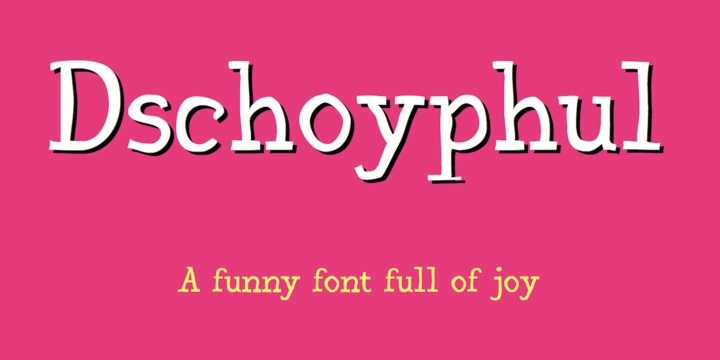
Dschoyphul Font
Dschoyphul Font is perfect for celebratory event branding, festival marketing materials, party invitation designs, cheerful greeting cards, children's entertainment venues, birthday party decorations, joyful holiday campaigns, and uplifting motivational content where happiness and positive energy are essential.
What makes Dschoyphul Font so exciting is its infectious ability to radiate pure joy and celebration through exuberant letterforms that instantly lift spirits and create smiles while maintaining excellent readability. The playful character design embodies the unbridled enthusiasm and genuine happiness that makes special occasions truly memorable.
The Dschoyphul Font family includes regular, bold, and festive variants, with decorative celebration elements and joy-inspired ornaments that provide designers with comprehensive tools for creating memorable party branding and happiness-focused design projects.
The font's bouncy character variations and cheerful details create immediate associations with laughter, celebration, and positive life experiences. Each letterform has been crafted to evoke the spontaneous happiness and infectious energy found in life's most joyful moments.
Dschoyphul Font excels in creating memorable brand experiences that spread happiness and create lasting positive impressions. The typeface's joyful personality makes it ideal for businesses and organizations dedicated to bringing joy and celebration into people's lives.
From event planning companies to children's entertainment venues, this font brings authentic happiness that connects with audiences seeking genuine joy and celebration. The versatile design works beautifully across party decorations, marketing materials, and digital applications while maintaining its cheerful character.